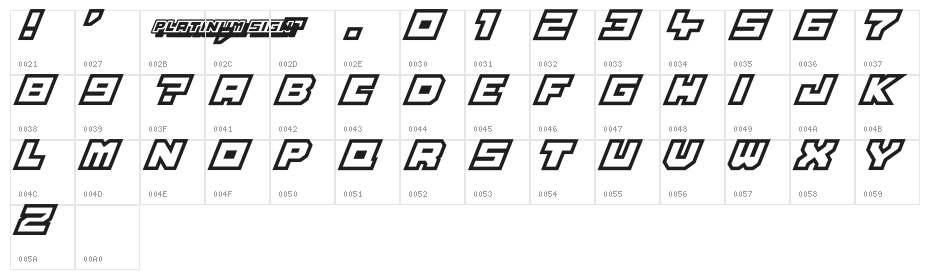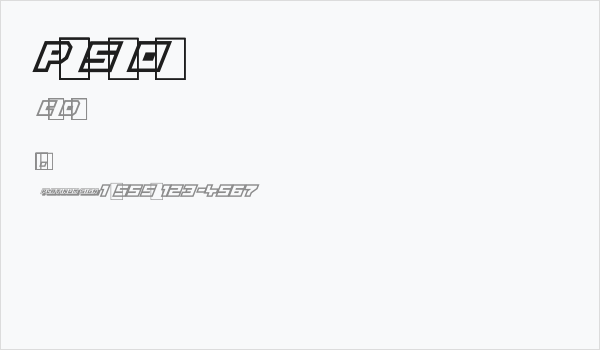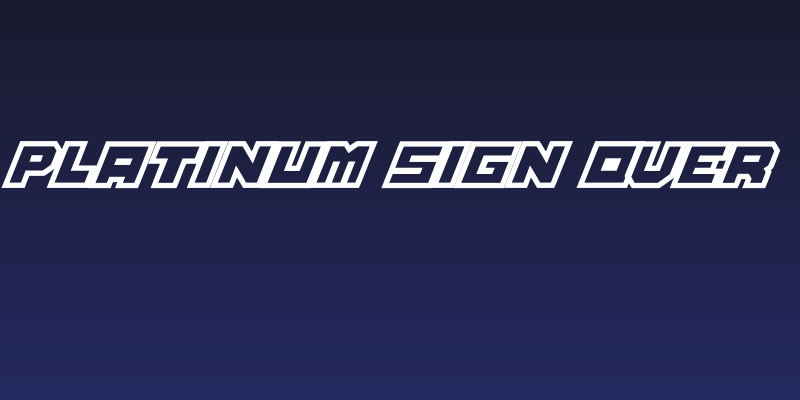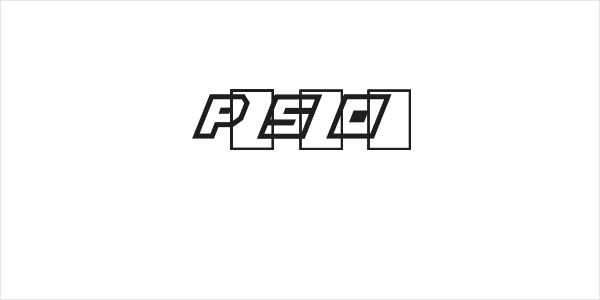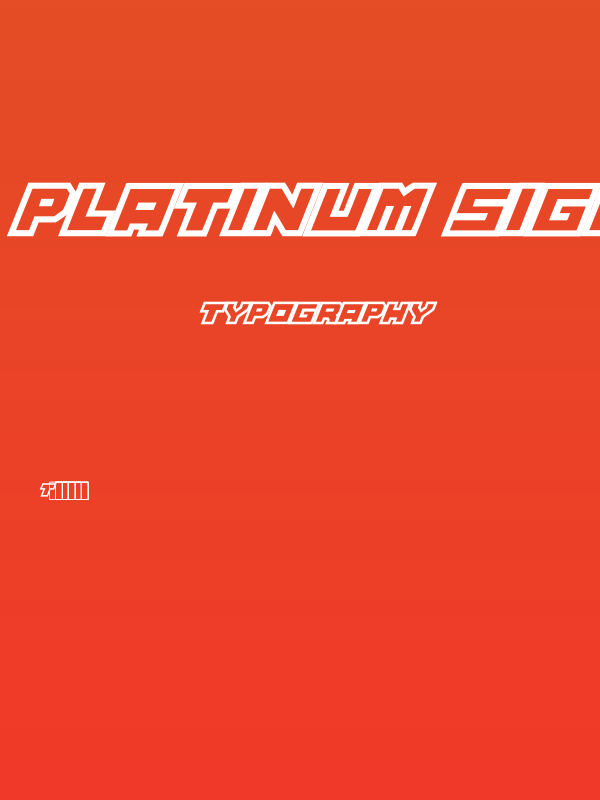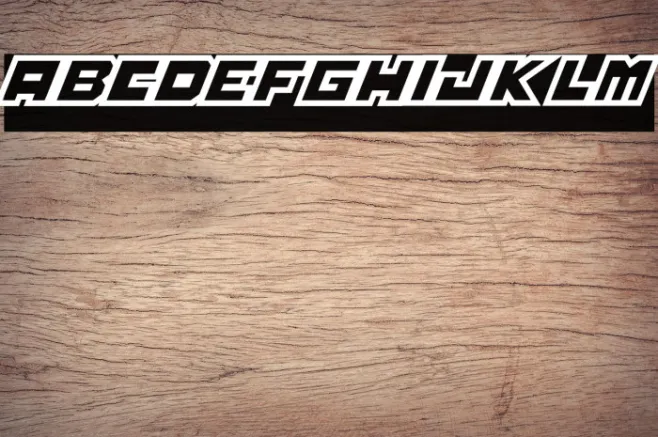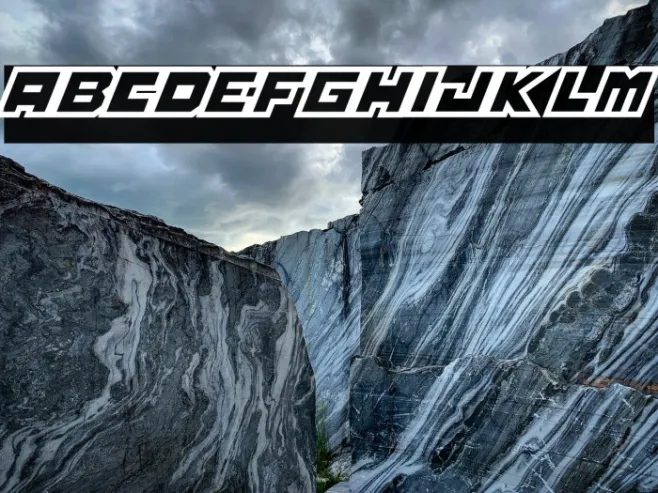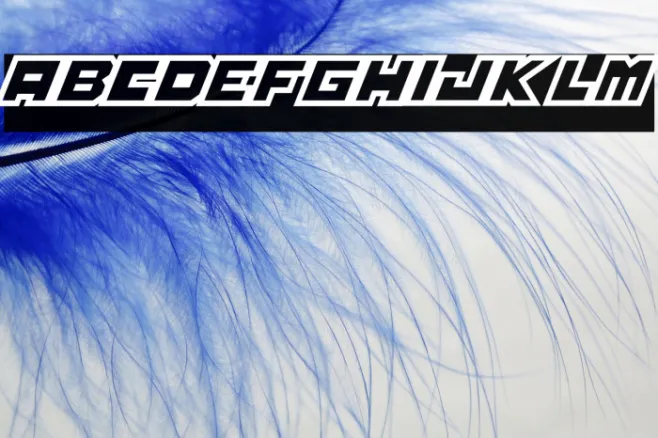
Platinum Sign Over Font
Platinum Sign Over Description
This font features a bold, angular design with a futuristic and dynamic appearance. The characters are outlined, creating a striking contrast between the thick strokes and the inner spaces. The uppercase letters are particularly prominent, with sharp edges and a sense of movement, as if they are leaning forward. The numerals and special characters follow the same stylistic approach, maintaining consistency throughout the set. This font is ideal for projects that require a modern and edgy look, such as technology-related branding or sports team logos.
| Use Case | Logos, Headlines |
| Proposed Projects | Ideal for technology branding, sports logos, and dynamic headlines. |